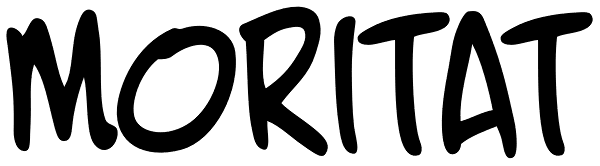
Moritat
It's unpredictable! It's enigmatic! It has a winning smile and a devil-may-care personality. It can be charming and obliging and yet also elusive and impractical. It is the doer of deadly deeds, it is the dextrous hand of ELEPHANTMEN artist Justin...